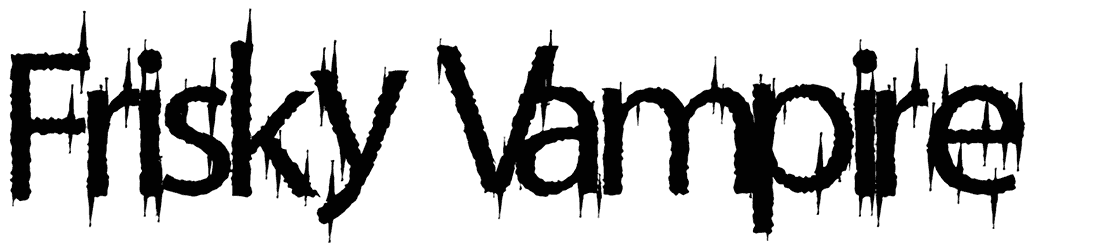
Frisky Vampire Font
The first thing that you need for a movie name or a Halloween product brand to seem scary is to use the right font. That’s why we offer you Frisky Vampire, which is a vampire font that can ease all of your work.